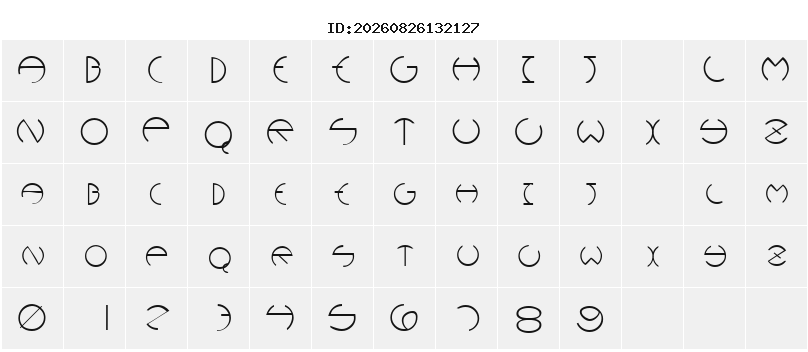
• Font Name: WannaBeeSCapsSSK
• Full Font Name: WannaBeeSCapsSSK
About WannaBeeSCapsSSK.ttf
WannaBeeSCapsSSK.ttf is a modern, elegant sans-serif font designed for ultimate readability and visual harmony. Perfect for branding, headlines, web design, and print materials.